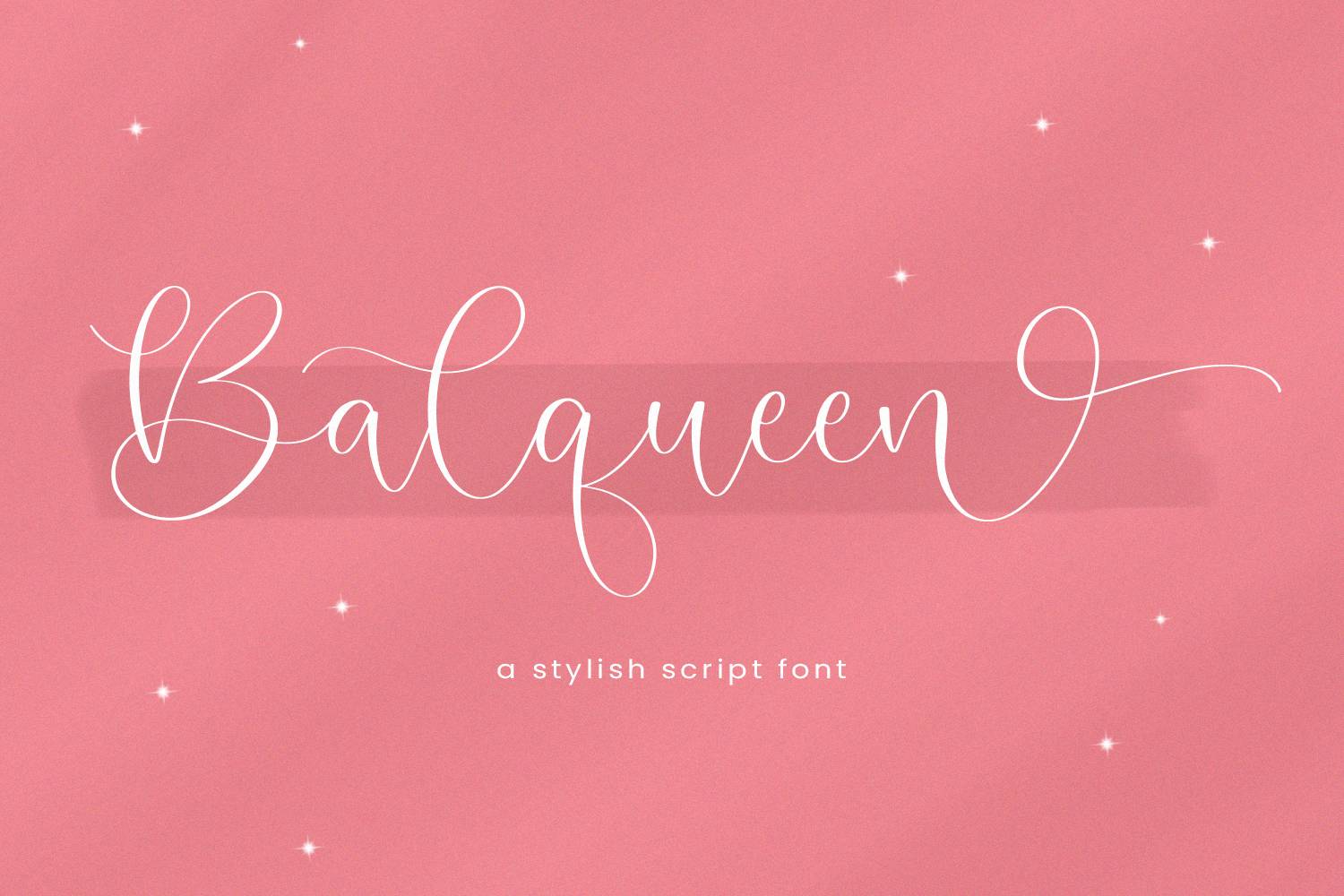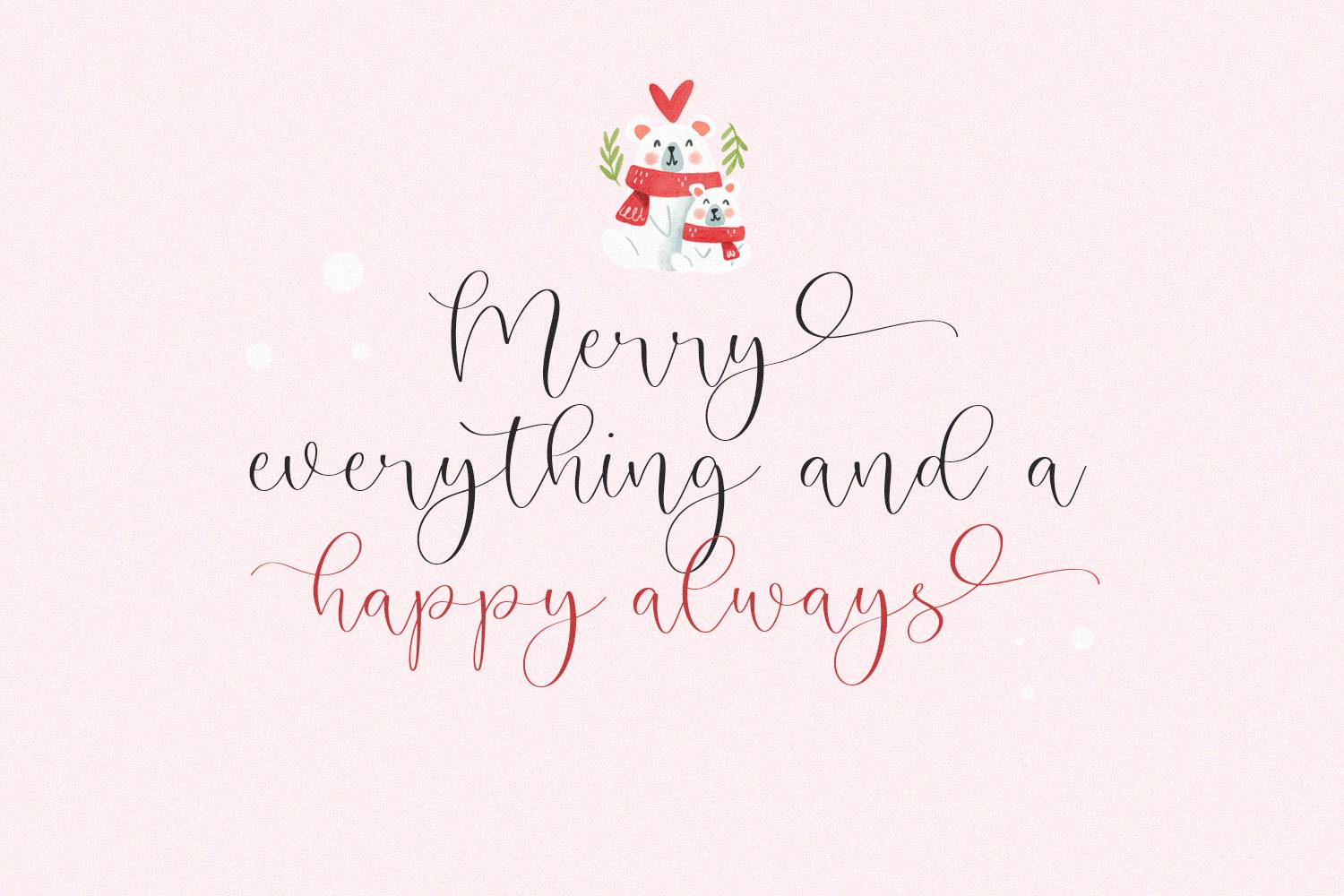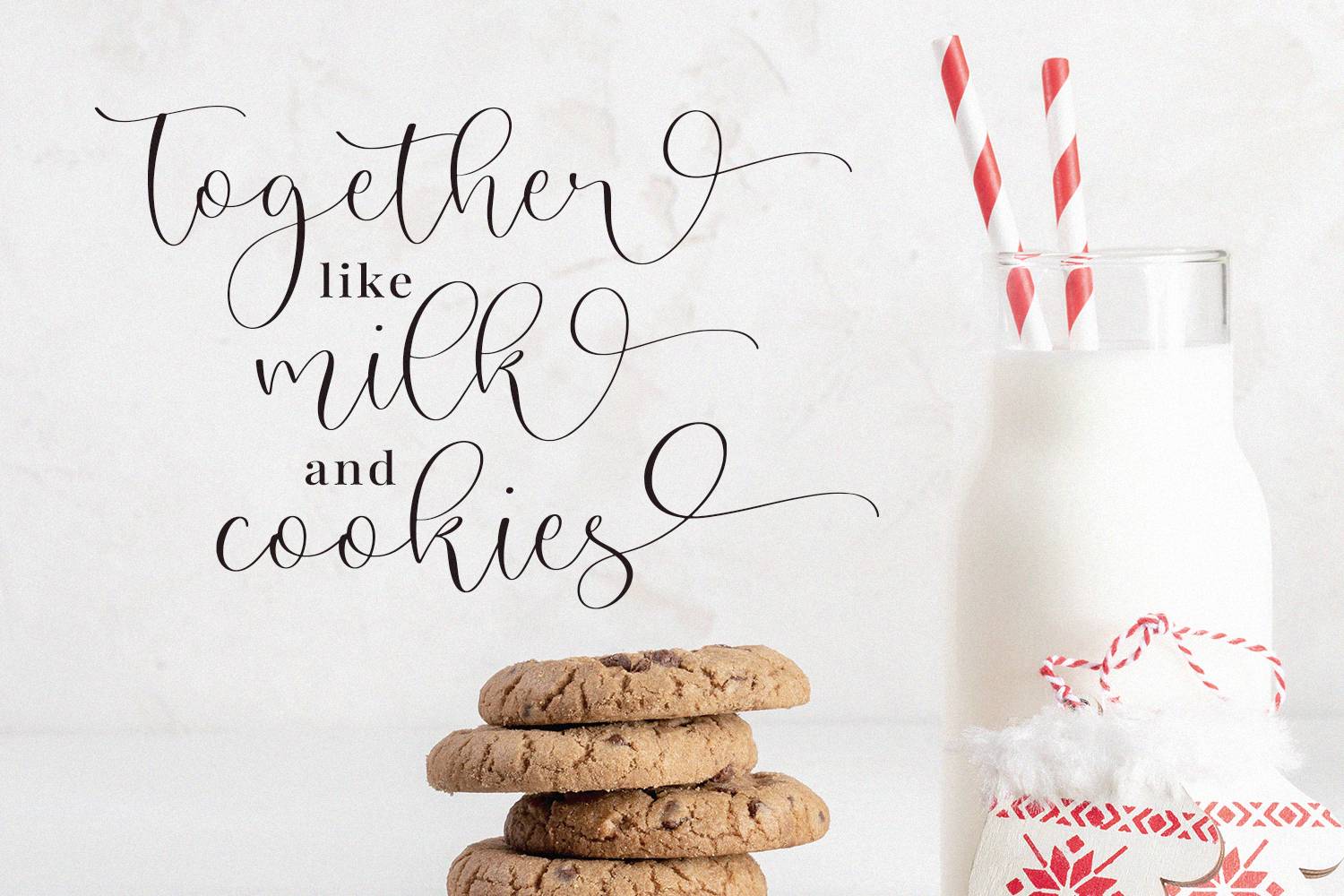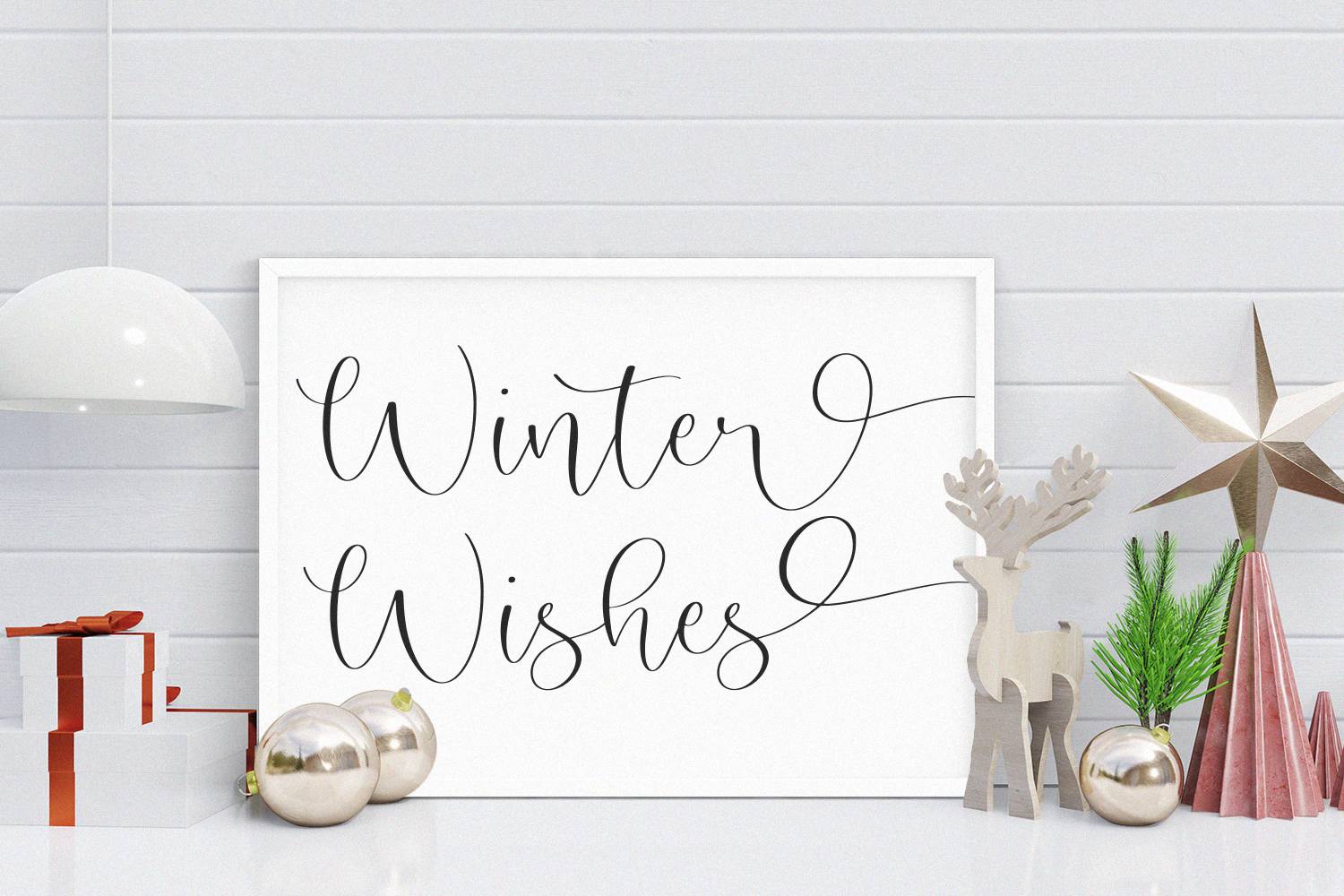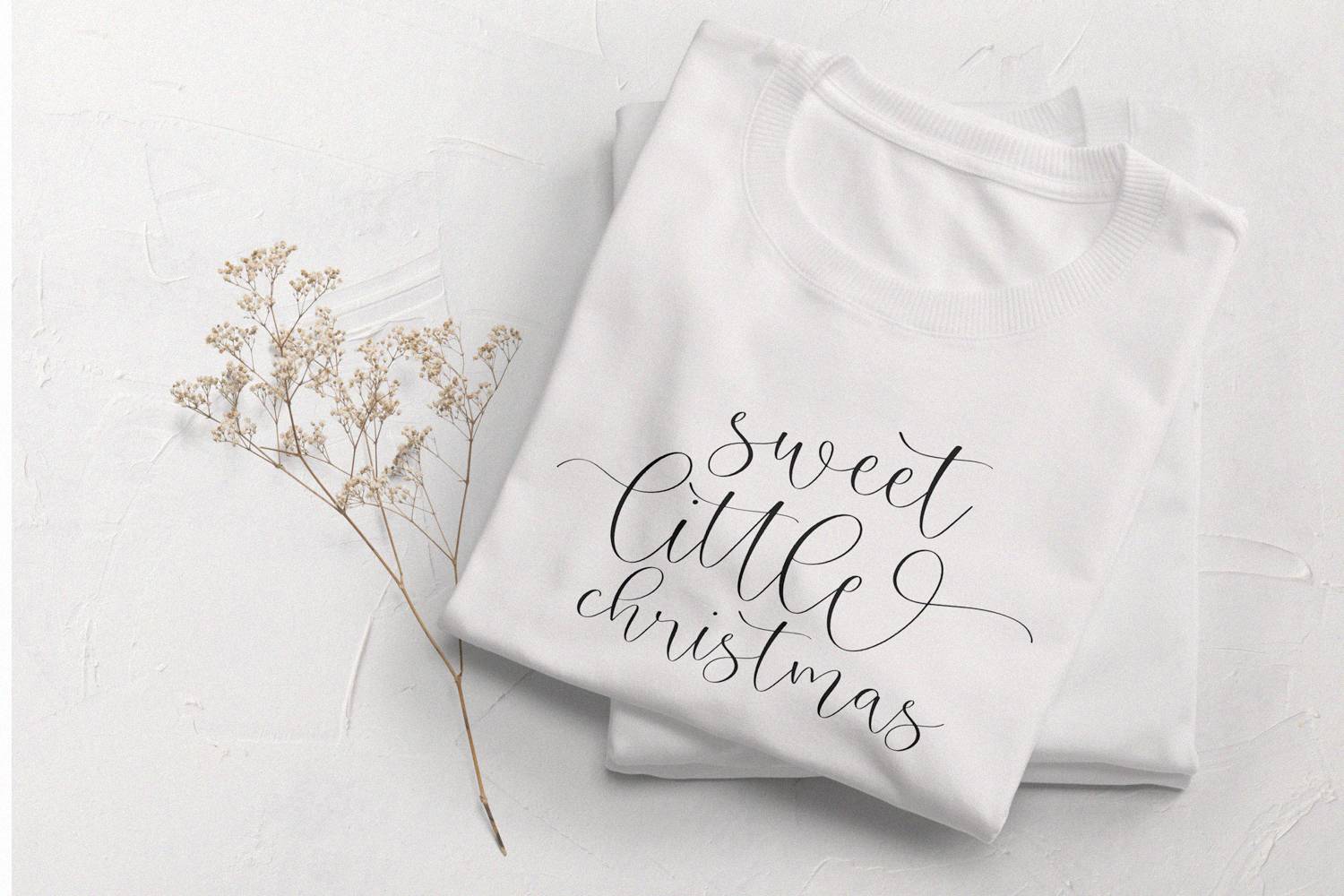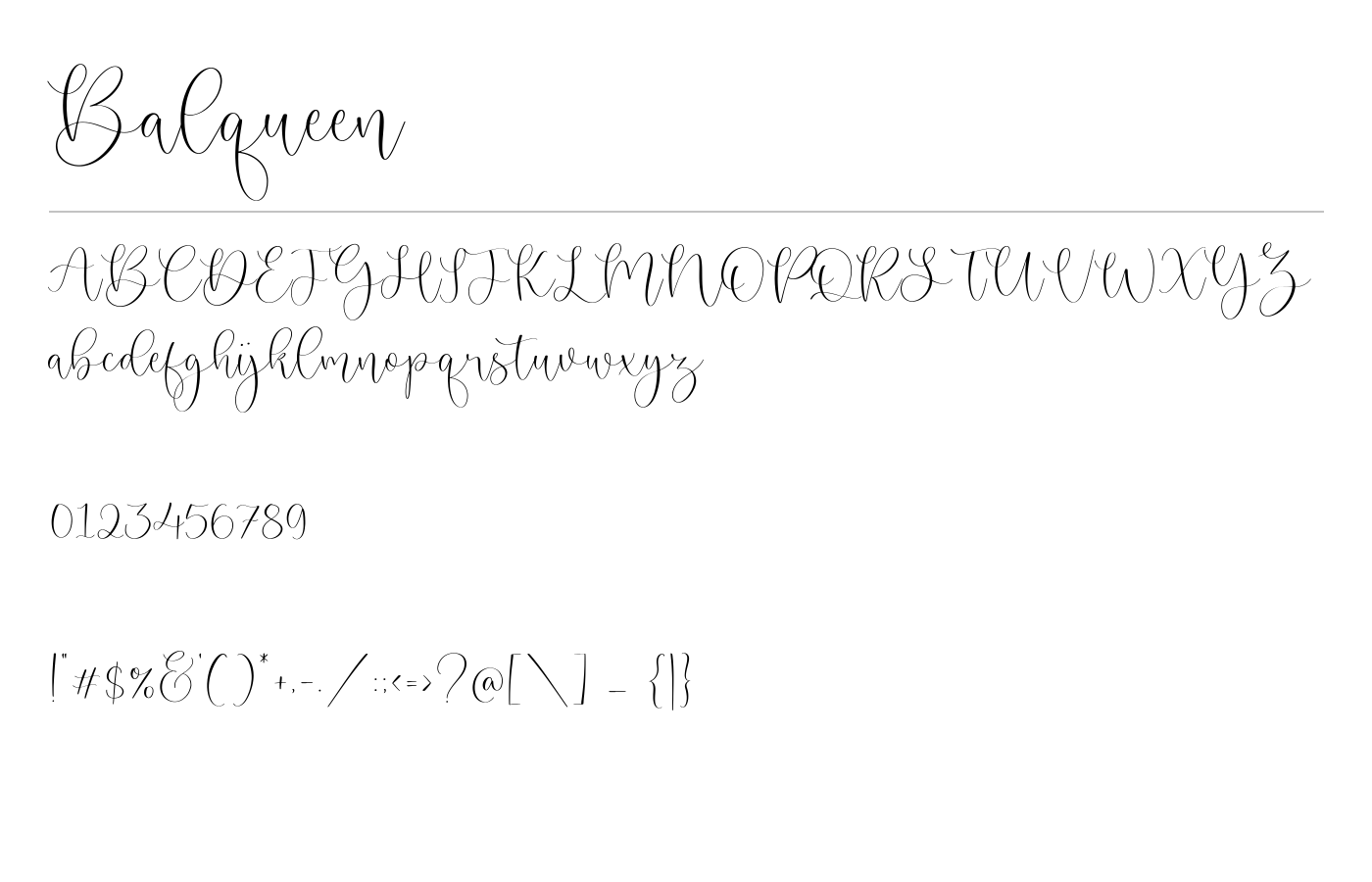
Balqueen is an elegant, delicate script font characterized by its fine, flowing lines and ornate curls that evoke a sense of sophistication and grace. Perfect for luxury branding, wedding invitations, and editorial headlines, its airy and decorative style adds a feminine, artistic touch that communicates beauty and refinement. This font works best in large sizes where its intricate details can shine without sacrificing readability.
Balqueen Font
About Balqueen Font